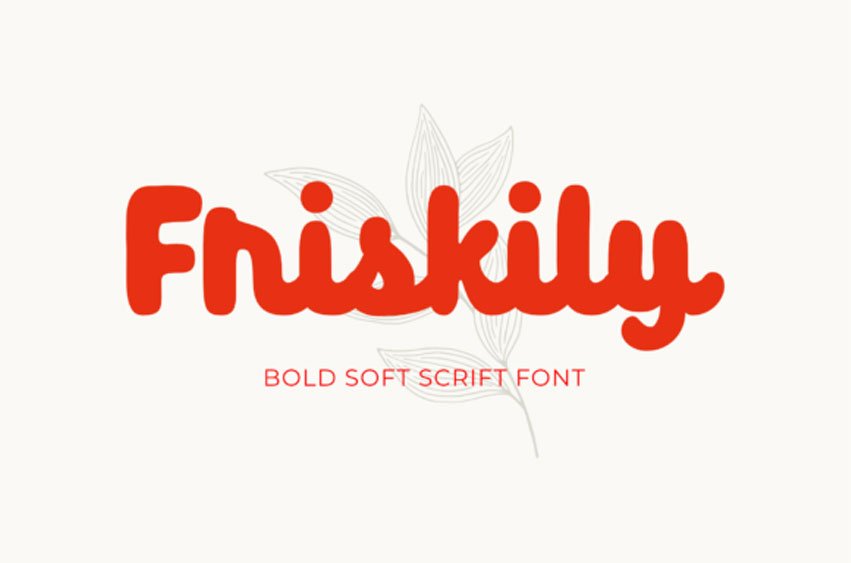
Friskily Font is a soft and bold handwritten font.
With a simple retro vibe, it will look amazing on headlines, magazines, logos, branding, and so much more!